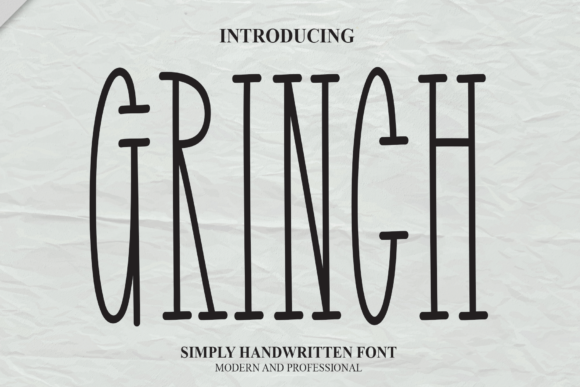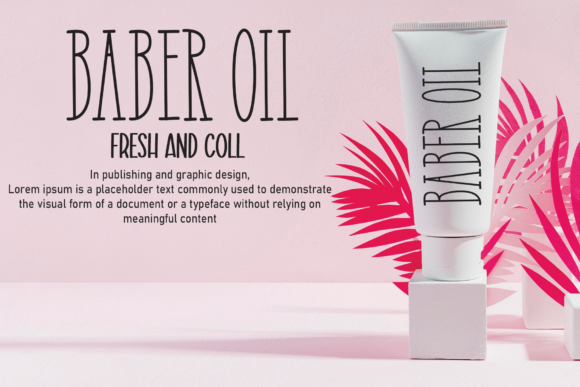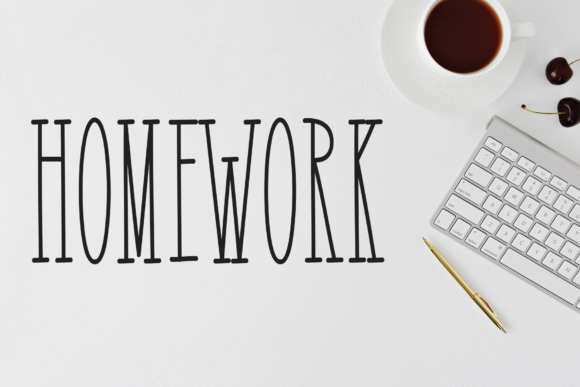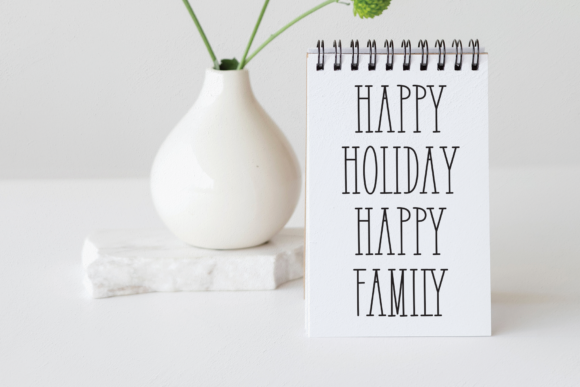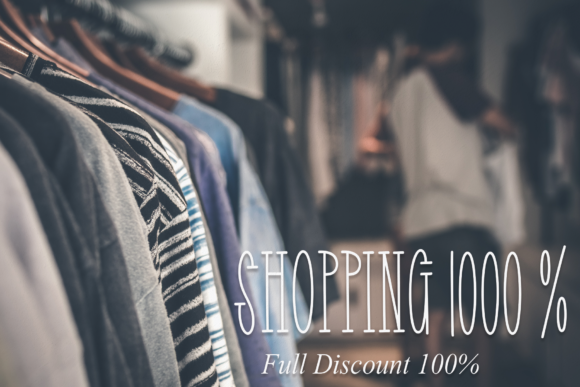
Grinch Font
Grinch is a thin lettered, dainty and tall serif font. Whatever the topic, this font will be a wonderful asset to your font library, as it has the potential to enhance any creation.